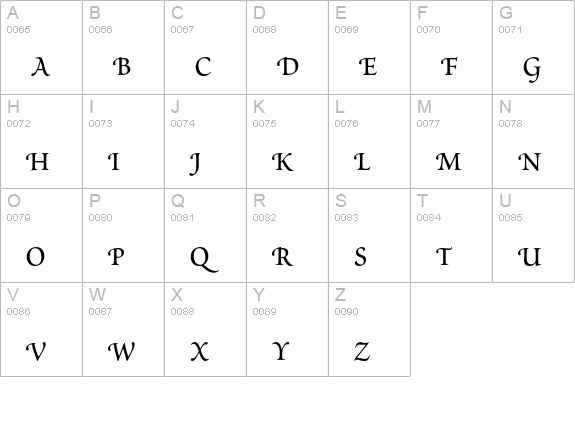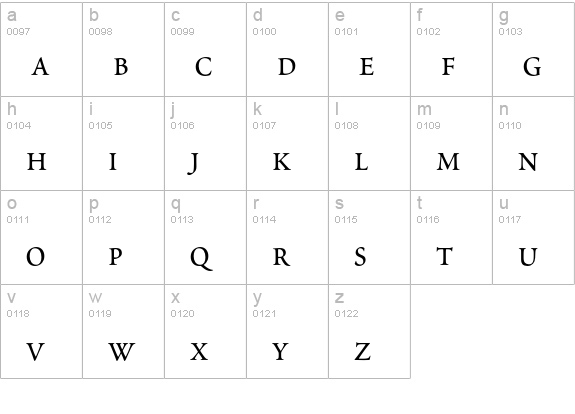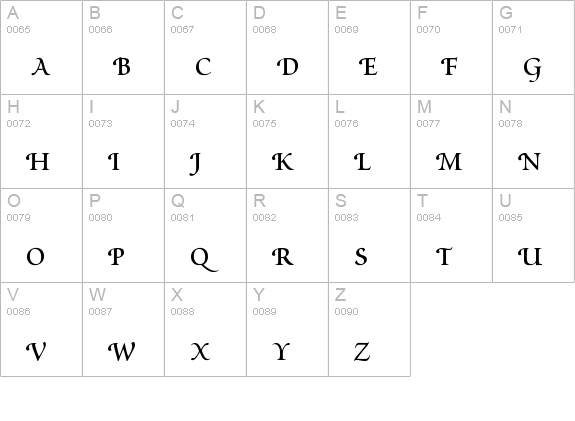
Poetica Roman Small Capitals font is a timeless and elegant typeface that exudes sophistication and charm. Its classic small capitals design adds a touch of refinement to any project, whether it be invitations, branding, or editorial layouts. The graceful curves and delicate serifs of Poetica Roman Small Capitals lend an air of grace and beauty to your text, making it perfect for conveying a sense of elegance and tradition. What makes Poetica Roman Small Capitals even more appealing is that it is available for free download at FontsMarket.com. This means you can easily access this exquisite font and incorporate its timeless beauty into your designs without any cost. Don't miss out on the opportunity to elevate your projects with the exquisite Poetica Roman Small Capitals font, now freely available for download.